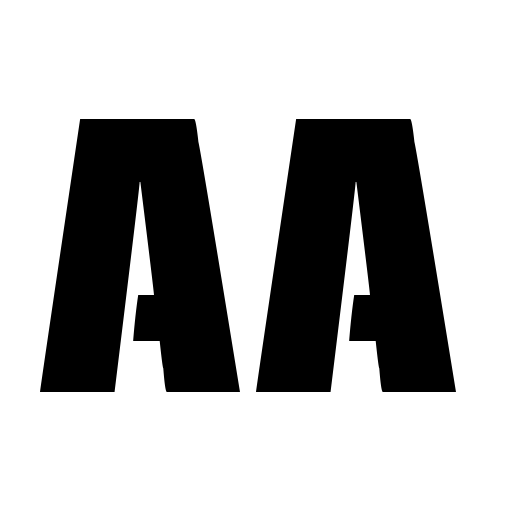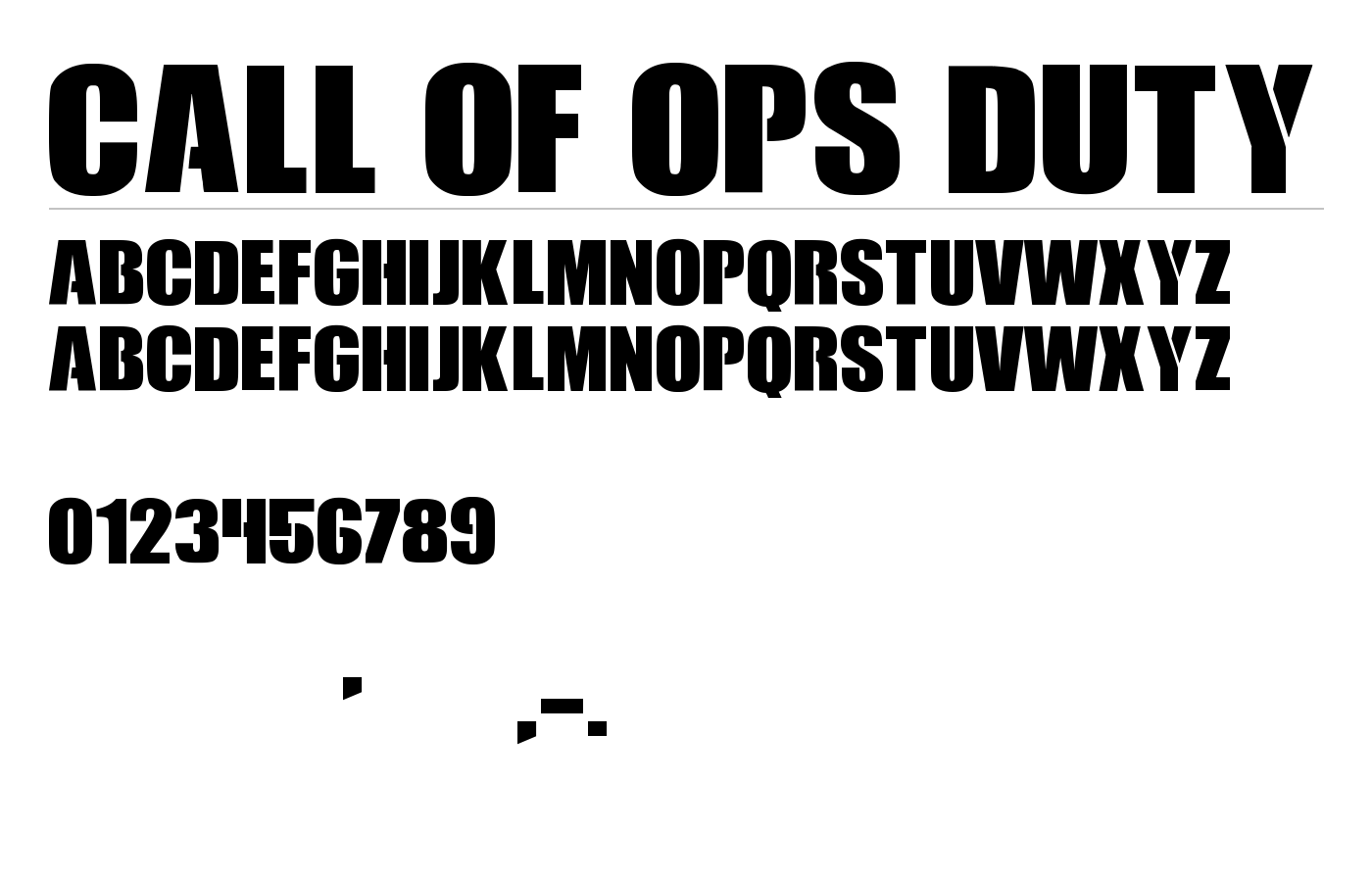
Call Of Ops Duty Font is a bold, condensed sans serif typeface with a strong military and industrial feel. Its thick, uniform strokes and slightly compressed letterforms convey power and urgency, making it ideal for impactful headlines, posters, and branding that require a tough, commanding presence. This font excels in designs related to action, gaming, or adventure, where a bold and assertive look is essential.
Call Of Ops Duty Font